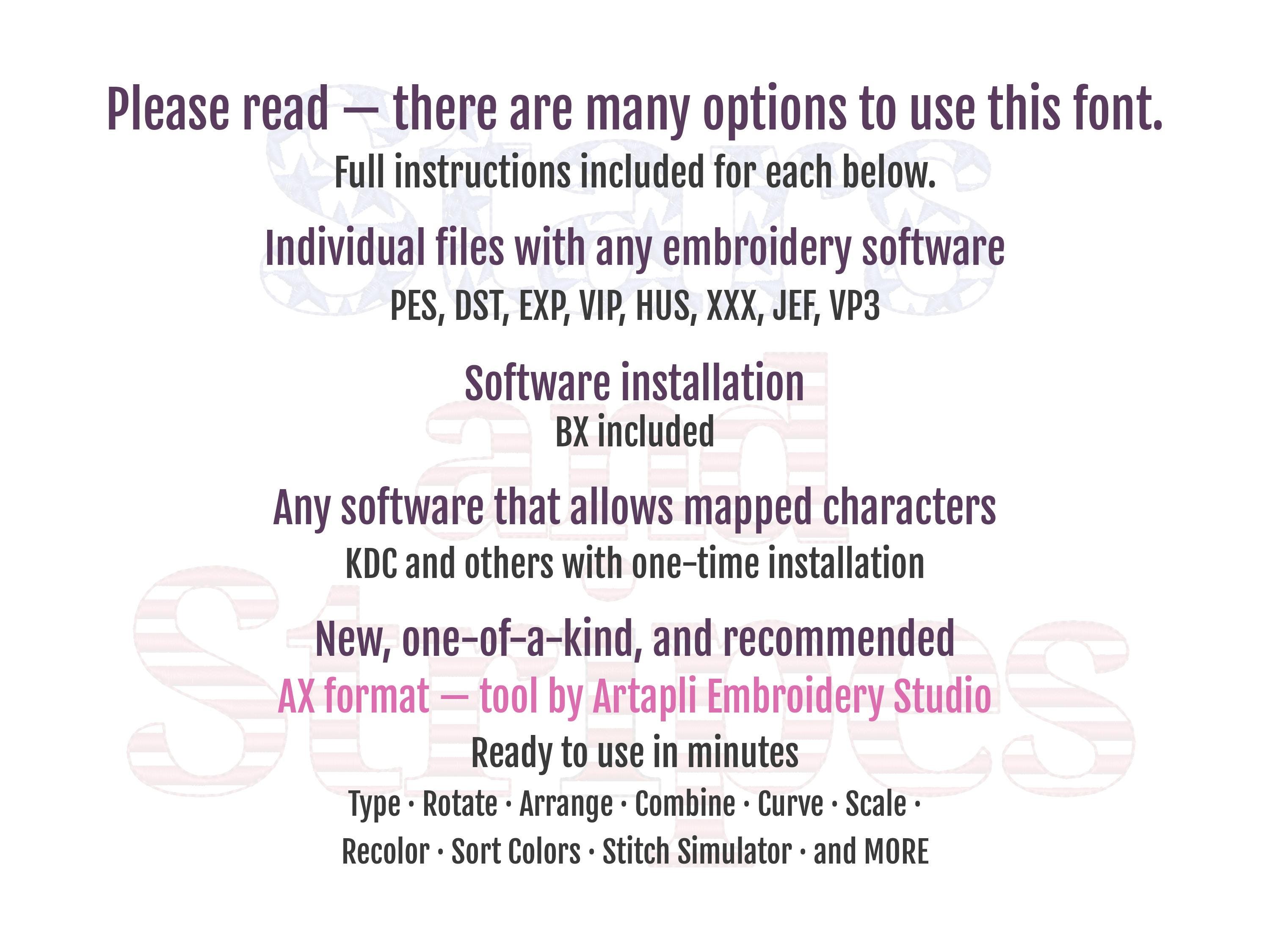
Stars and Stripes Block Patriotic Font 2 types machine embroidery designs SET of 2 alphabet letters assorted sizes 4th July Independence Day
Included 2 fonts in matching sizes.
Uppercase and lowercase letters, numbers, and punctuation.